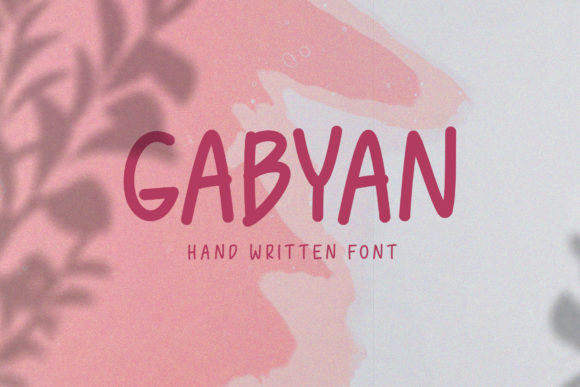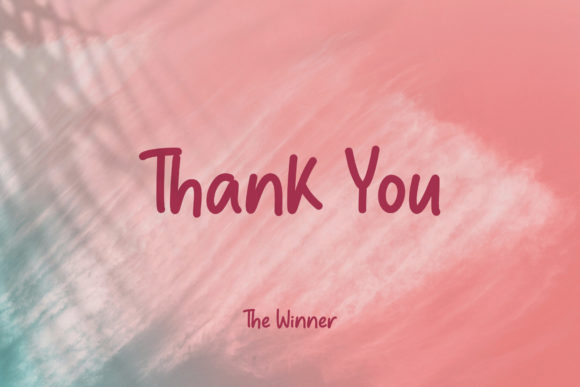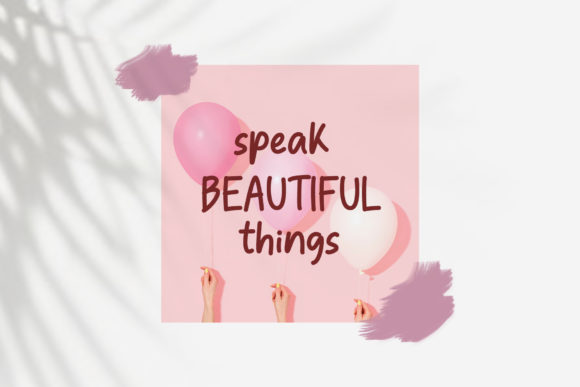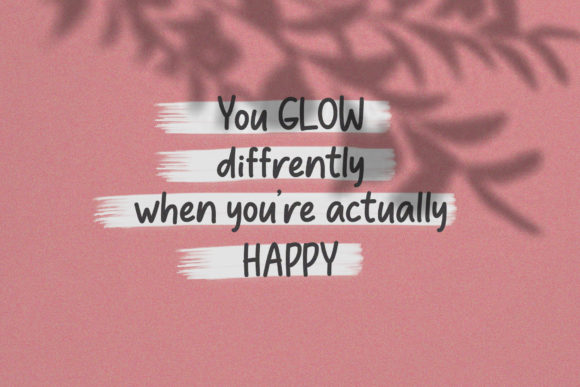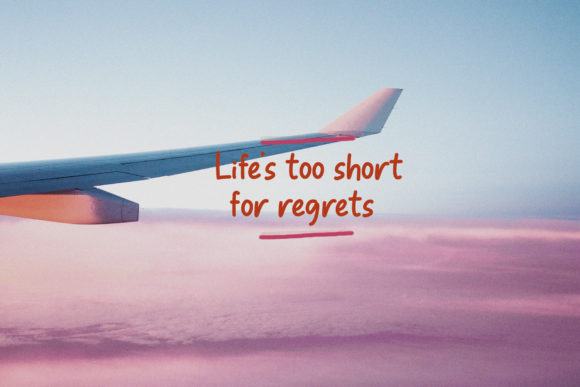
About Gabyan Font
Gabyan is a handwritten font that captures an authentic and personal feel, making it a perfect choice for chalkboard quotes and teaching materials. With its natural and realistic appearance, Gabyan adds a touch of warmth and character to your designs.
The organic and imperfect strokes of Gabyan give it an authentic hand-drawn look, resembling the charming style of writing on a chalkboard. This makes it an ideal font for educational materials, classroom resources, or any design that aims to create a nostalgic or vintage atmosphere.
The versatility of Gabyan allows it to be used in various design contexts. Whether you’re creating lesson plans, educational posters, inspirational quotes, or decorative elements for teaching materials, Gabyan’s authentic look and feel will bring a personal touch to your designs.
Furthermore, the readability of Gabyan ensures that your messages are conveyed clearly. The well-crafted letterforms and balanced spacing make it easy to read, making it suitable for conveying information and instructions effectively.
Gabyan’s handwritten charm can also be applied to other design projects beyond teaching materials. Its personal and realistic style can add a unique and intimate touch to greeting cards, invitations, packaging, branding, and more. It brings a sense of authenticity and warmth that resonates with the viewers.
In conclusion, Gabyan is a handwritten font that adds an authentic and personal feel to your designs, making it ideal for chalkboard quotes and teaching materials. Its versatile nature and readable letterforms make it suitable for various design contexts. Let Gabyan bring a personal and realistic touch to your creative endeavors!